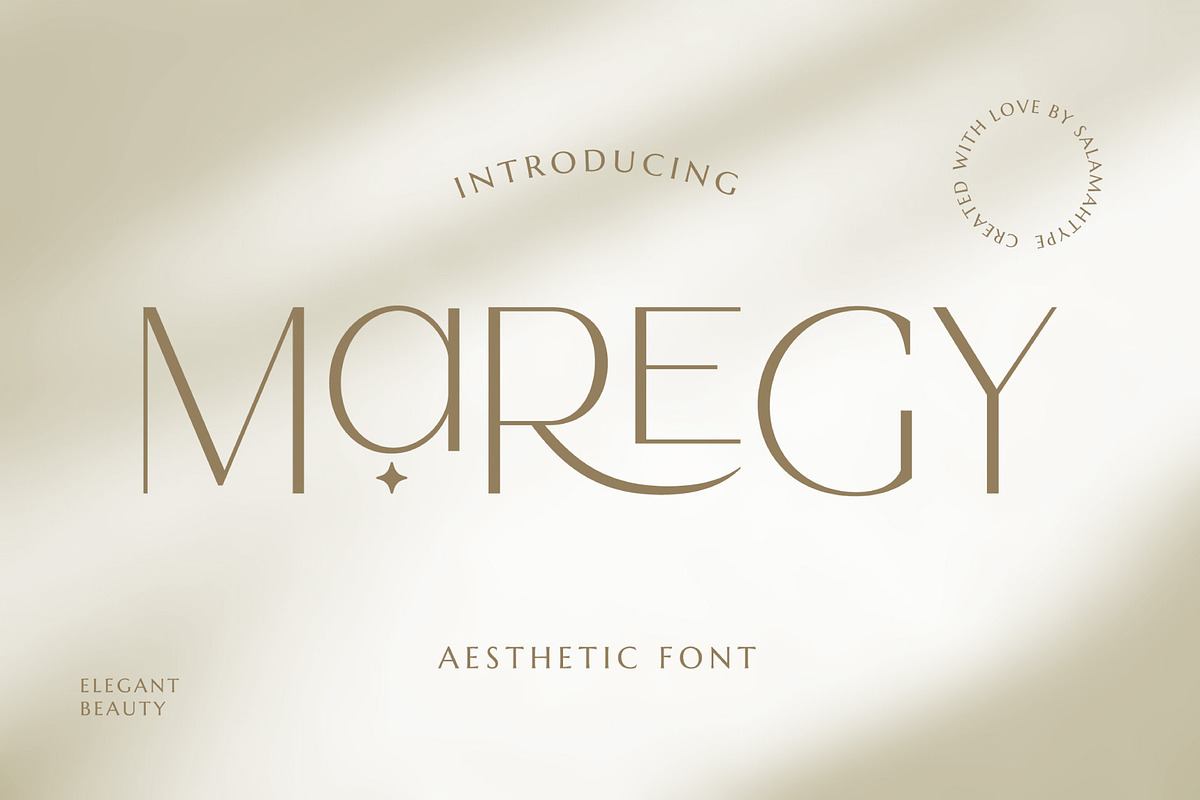
Maregy – Elegant Sans Serif Font Free Download is a refined and sophisticated typeface designed to bring modern elegance to your designs. Featuring clean lines, minimalistic style, and smooth curves, this font is perfect for branding, high-end fashion, editorial layouts, logos, and any project that requires a sleek, professional look.
Maregy’s versatility allows it to work across various applications, from print to digital content, making it ideal for both body text and headlines. Whether you’re working on luxury branding, stylish magazine spreads, or a modern website, Maregy offers clarity and timeless appeal.
Elevate your designs with the sophisticated, modern beauty of Maregy!